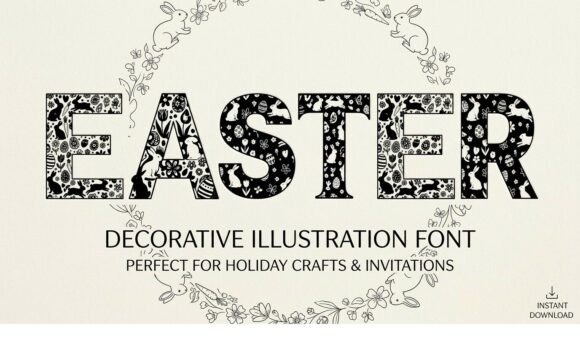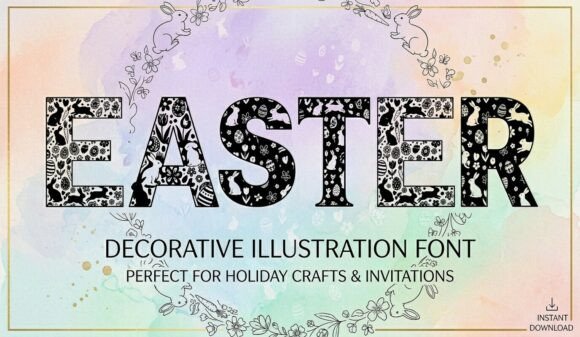
Easter Bunny Font: Bringing Spring Magic to Your Designs
As the seasons change and spring arrives, it’s the perfect time to infuse your designs with a touch of whimsy and festivity. Introducing the Easter Bunny Font, a beautifully intricate decorative display font that’s specifically designed for holiday crafting and seasonal designs. This stunning font features bold, chunky uppercase letters filled with delightful spring-themed illustrations, making it an ideal choice for designers and crafters looking to add a dash of magic to their projects.
A Closer Look at the Easter Bunny Font
The Easter Bunny Font is a masterpiece of detailed illustrative design. Each letter is carefully crafted to feature a whimsical pattern of jumping bunnies, decorated Easter eggs, spring flowers, and carrots. The internal patterns are so intricately designed that they seem to come alive, making this font a true showstopper. The bold and chunky uppercase letters provide a sturdy base for the beautiful illustrations, creating a striking centerpiece for your designs.
Perfect for Larger-Scale Projects
Due to its highly detailed illustrative style, the Easter Bunny Font works perfectly for larger-scale projects where the beautiful internal patterns can truly shine. Whether you’re designing a festive Easter card, a spring-themed poster, or a holiday craft project, this font is sure to make a statement. The Easter Bunny Font is ideal for designs that require a bold and eye-catching centerpiece, such as:
- Easter cards and invitations
- Spring-themed posters and flyers
- Holiday craft projects, such as DIY decorations and gift tags
Key Features of the Easter Bunny Font
The Easter Bunny Font boasts several key features that make it a must-have for designers and crafters:
- Intricate Illustrations: Each letter features a unique and intricate illustration of spring-themed elements, including jumping bunnies, decorated Easter eggs, spring flowers, and carrots.
- Bold and Chunky Uppercase Letters: The font features bold and chunky uppercase letters, providing a sturdy base for the beautiful illustrations.
- Highly Detailed Design: The internal patterns are highly detailed, making this font perfect for larger-scale projects where the illustrations can truly shine.
- Whimsical and Festive: The Easter Bunny Font is designed to bring a touch of whimsy and festivity to your designs, making it perfect for holiday crafting and seasonal designs.
Tips for Using the Easter Bunny Font
To get the most out of the Easter Bunny Font, here are a few tips to keep in mind:
- Use it as a Centerpiece: Use the Easter Bunny Font as a centerpiece for your designs, pairing it with simpler fonts for body text.
- Experiment with Colors: Experiment with different colors and textures to bring out the intricate illustrations and add depth to your designs.
- Pair it with Spring-themed Elements: Pair the Easter Bunny Font with spring-themed elements, such as floral patterns, Easter eggs, and bunnies, to create a cohesive and festive design.
The Easter Bunny Font is a beautifully intricate decorative display font that’s perfect for designers and crafters looking to add a touch of spring magic to their projects. With its bold and chunky uppercase letters, intricate illustrations, and highly detailed design, this font is sure to make a statement in any design. Whether you’re creating Easter cards, spring-themed posters, or holiday craft projects, the Easter Bunny Font is a must-have for bringing whimsy and festivity to your designs.